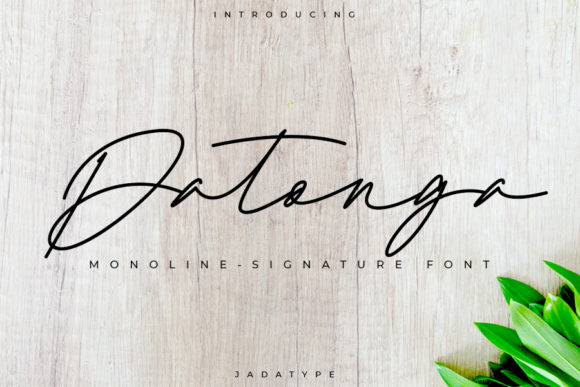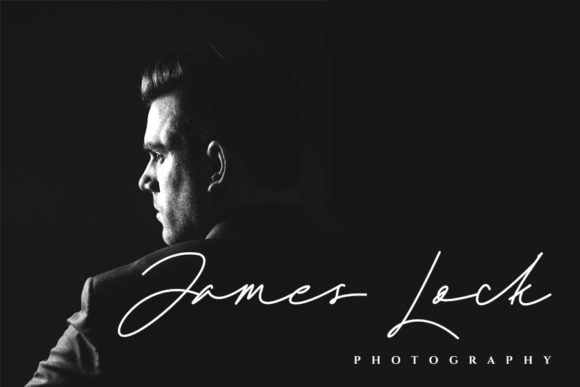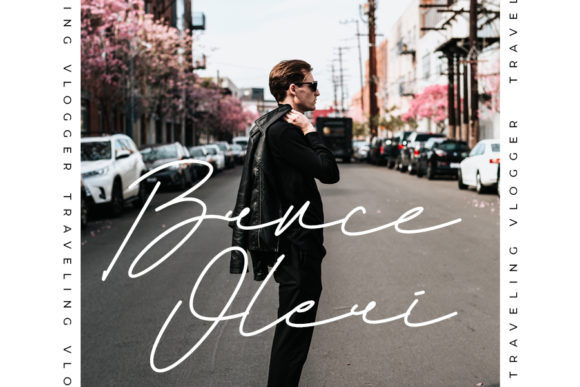
About Datonga Font
Datonga is a thin and incredibly stylish handwritten font. This versatile script font has a wide spectrum of applications ranging from greeting cards to headlines and is guaranteed to add a romantic feel to your next project.